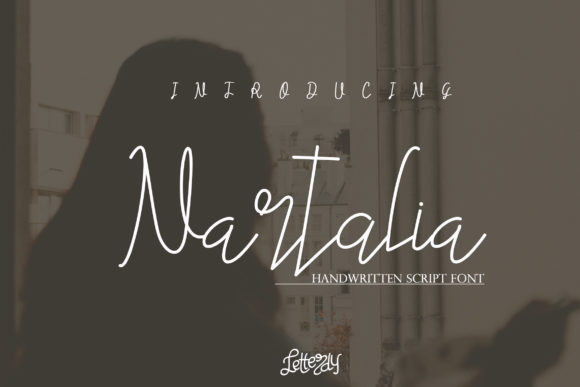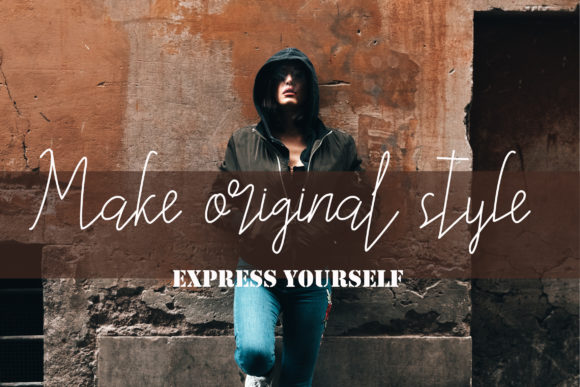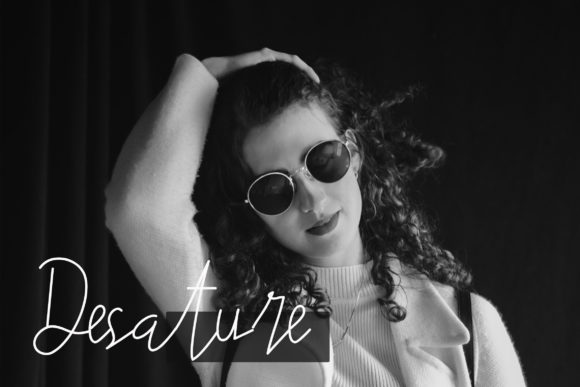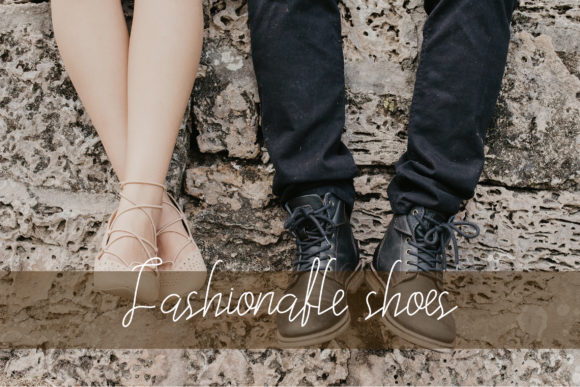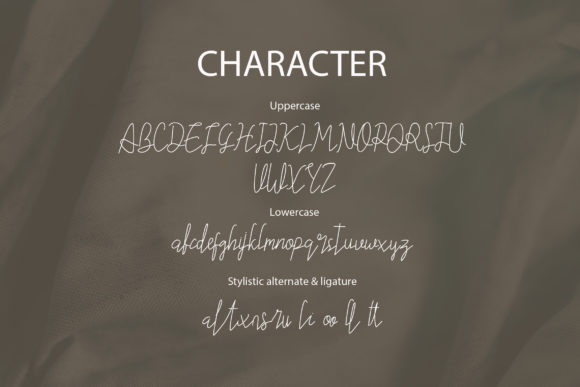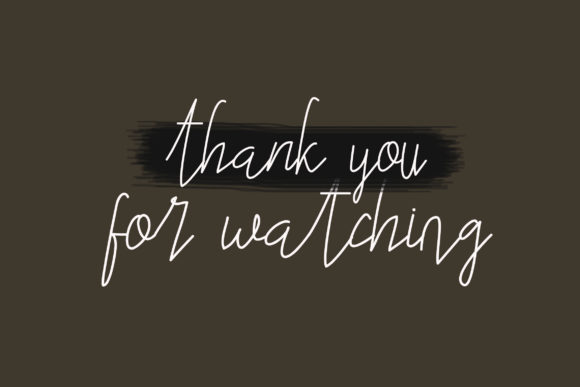
HomeScript FontsNartalia Font Script Fonts Nartalia Font FacebookXPinterestWhatsApp Nartalia Font Poster 2 Nartalia Font Poster 3 Nartalia Font Poster 4 Nartalia Font Poster 5 Nartalia Font Poster 6 About Nartalia Font Nartalia is a modern and elegant handwritten font with an undeniable charm. Fall in love with its authentic feel. DOWNLOAD NOW People also explored Reborn Font Stayline Font Batiku Font My Husband Font Sunday Holiday Font Dalattiona Font Rhetorical Monogram Craft Font Qilla Font 461 0 TagsNartalia Font Previous articleSleepbottom FontNext articleSacreditty Font LEAVE A REPLY Cancel reply Comment: Please enter your comment! Name:* Please enter your name here Email:* You have entered an incorrect email address! Please enter your email address here Website: Save my name, email, and website in this browser for the next time I comment. Personal Use Free Senza Bella Personal Use Free Read more about this font Calling Personal Use Free Read more about this font Qiwqiw Personal Use Free Read more about this font Nesto Copper 42 Font Personal Use Free Read more about this font BLOG Best Fonts for YouTube Videos: Make Your Thumbnails Stand Out Best Fonts for YouTube Videos: Make Your Thumbnails Stand Out Choosing the right font can make a massive difference in how your YouTube videos perform.... Best Fonts for T-Shirt Design – Top 2025 Picks Exploring Font Trends How to Install and Use Fonts on Windows, macOS, and Web Projects